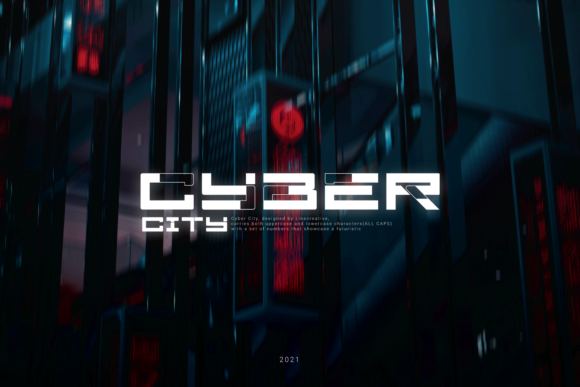
Cyber City Font: Elevate Your Designs with a Cool and Squared Lettered Display Font
In the world of digital design, fonts play a crucial role in conveying the tone and personality of a brand or creative project. With the vast array of fonts available, it can be challenging to find the perfect one that stands out from the crowd. However, if you’re looking for a font that can add a touch of modernity and edginess to your designs, look no further than Cyber City Font. In this article, we’ll explore the features and benefits of Cyber City Font, and why it’s an excellent addition to your font library.
What is Cyber City Font?
Cyber City Font is a cool and squared lettered display font designed to make a statement. Its unique and futuristic design makes it perfect for a wide range of creative projects, from branding and advertising to digital media and web design. The font’s sleek and modern aesthetic is sure to grab attention and leave a lasting impression on your audience.
Key Features of Cyber City Font
- Squared Lettered Design: Cyber City Font features a distinctive squared lettered design that gives it a futuristic and edgy feel.
- Modern Aesthetic: The font’s modern aesthetic makes it perfect for designs that require a contemporary look and feel.
- High Versatility: Cyber City Font can be used for a wide range of creative projects, from headings and titles to logos and branding.
- Easily Readable: Despite its unique design, Cyber City Font is easily readable, making it perfect for use in digital media and web design.
Benefits of Using Cyber City Font
So, why should you consider adding Cyber City Font to your font library? Here are just a few benefits of using this versatile and modern font:
- Elevate Your Designs: Cyber City Font has the potential to elevate any creation, adding a touch of modernity and sophistication to your designs.
- Stand Out from the Crowd: With its unique and futuristic design, Cyber City Font can help your designs stand out from the crowd and grab attention.
- Perfect for Branding and Advertising: The font’s modern aesthetic and easily readable design make it perfect for use in branding and advertising.
How to Use Cyber City Font in Your Designs
So, how can you use Cyber City Font in your designs? Here are a few ideas to get you started:
- Headings and Titles: Use Cyber City Font to add a touch of modernity to your headings and titles.
- Logos and Branding: The font’s unique design makes it perfect for use in logos and branding.
- Digital Media: Use Cyber City Font in digital media, such as social media graphics and video titles.
- Web Design: The font’s easily readable design makes it perfect for use in web design, including headings and titles.
Tips for Getting the Most Out of Cyber City Font
To get the most out of Cyber City Font, here are a few tips to keep in mind:
- Experiment with Different Sizes: Don’t be afraid to experiment with different sizes to find the perfect fit for your design.
- Pair with Other Fonts: Cyber City Font pairs well with other fonts, so don’t be afraid to experiment with different combinations.
- Use in Combination with Other Design Elements: Use Cyber City Font in combination with other design elements, such as images and graphics, to create a visually appealing design.
In conclusion, Cyber City Font is a cool and squared lettered display font that can add a touch of modernity and edginess to your designs. With its unique and futuristic design, high versatility, and easily readable aesthetic, it’s perfect for a wide range of creative projects. Whether you’re looking to elevate your designs, stand out from the crowd, or simply add a touch of sophistication to your branding and advertising, Cyber City Font is an excellent addition to your font library.